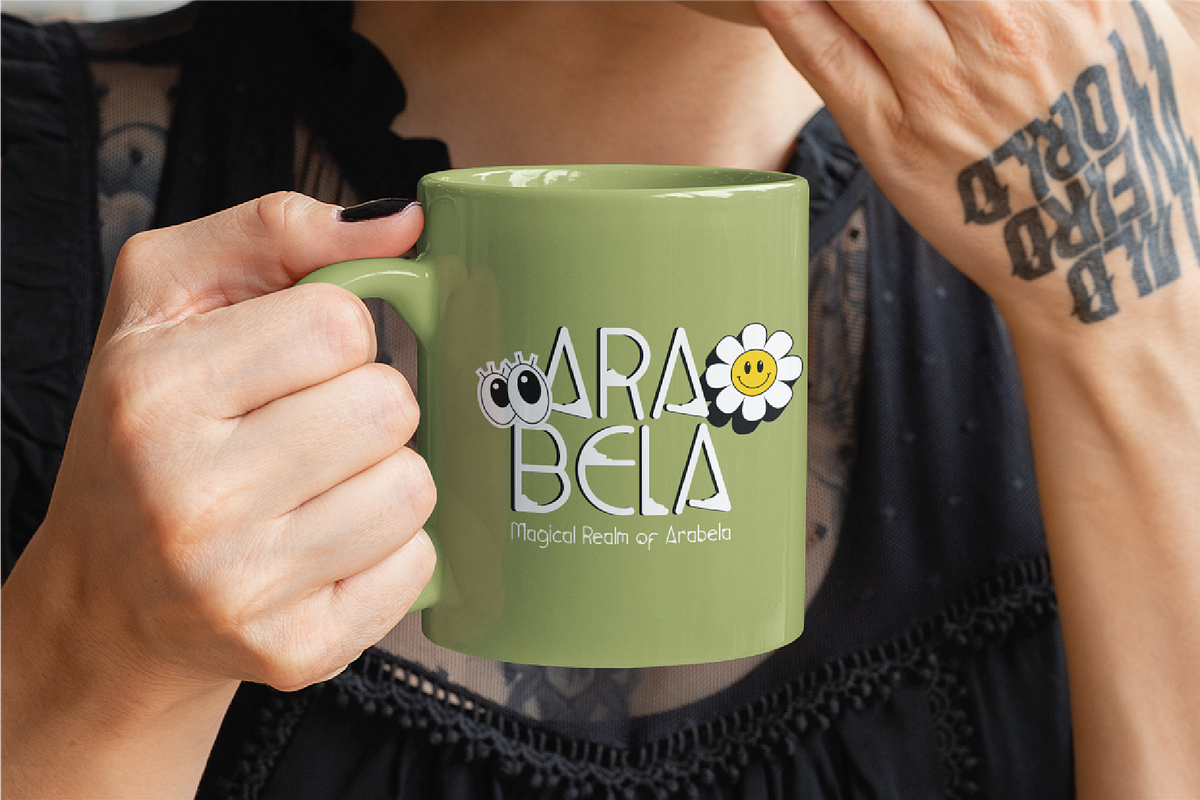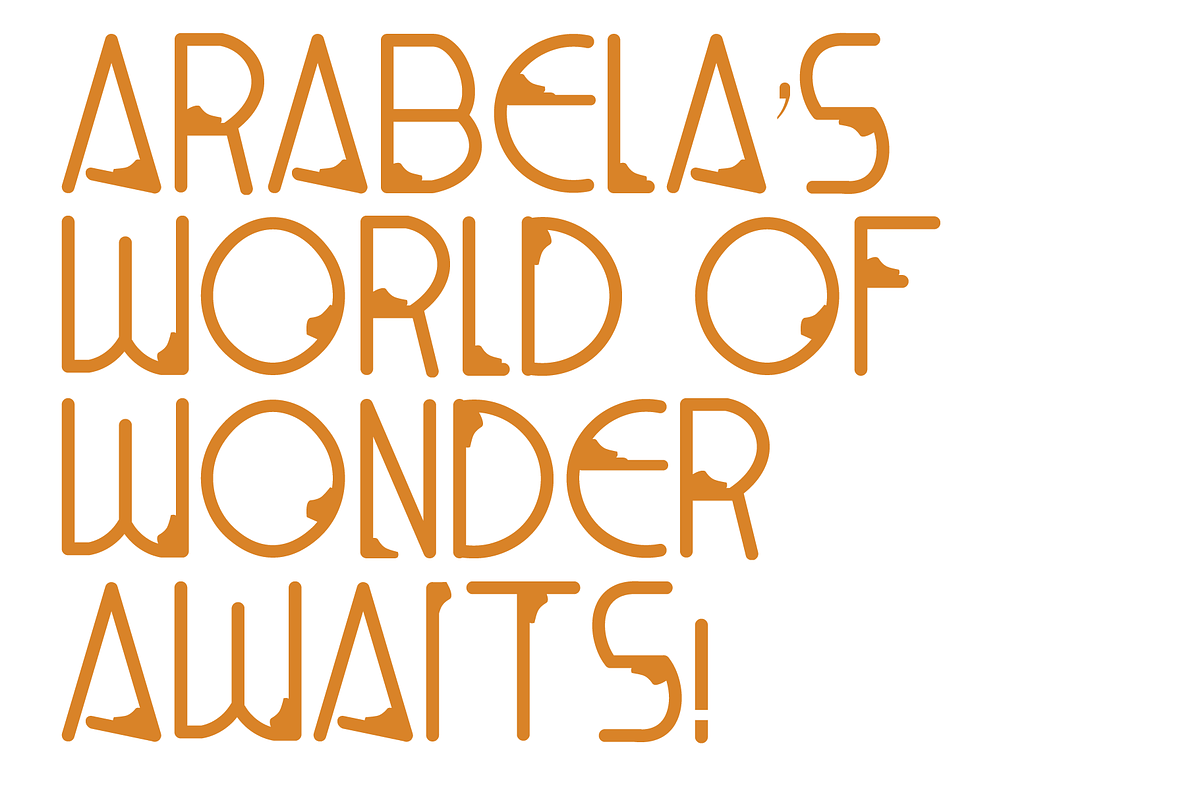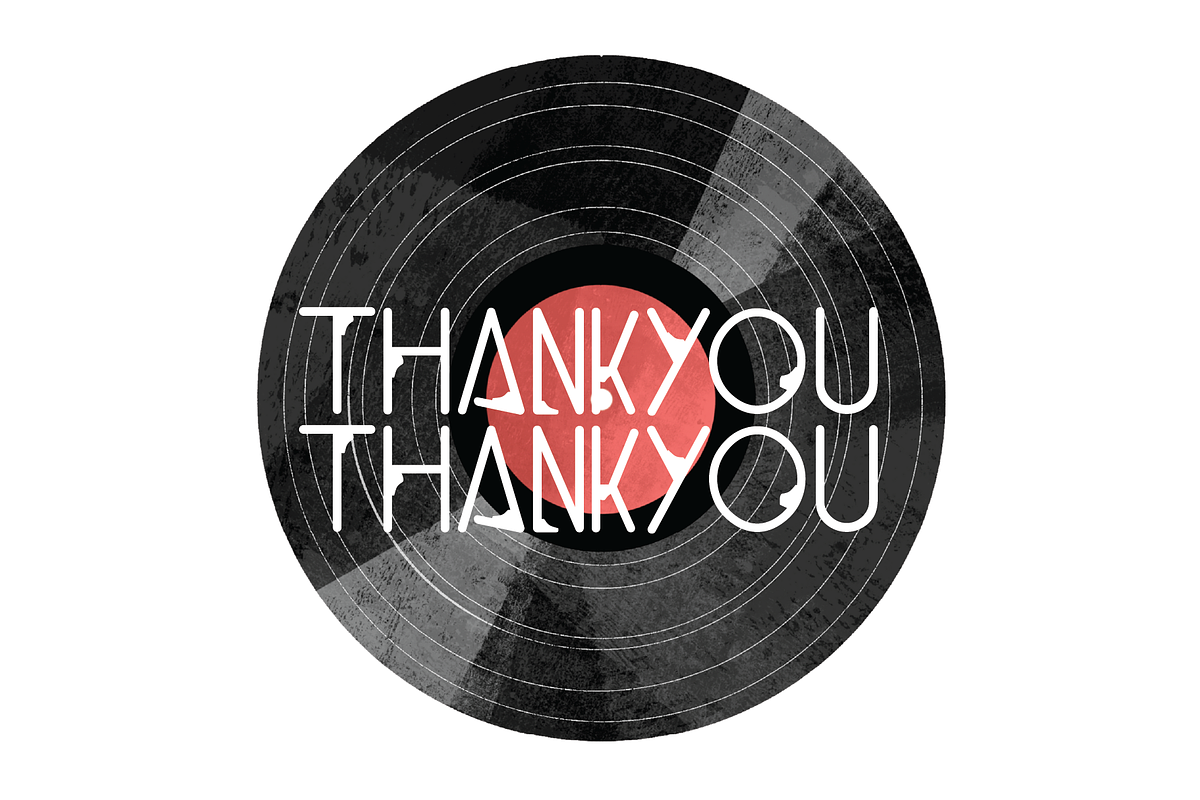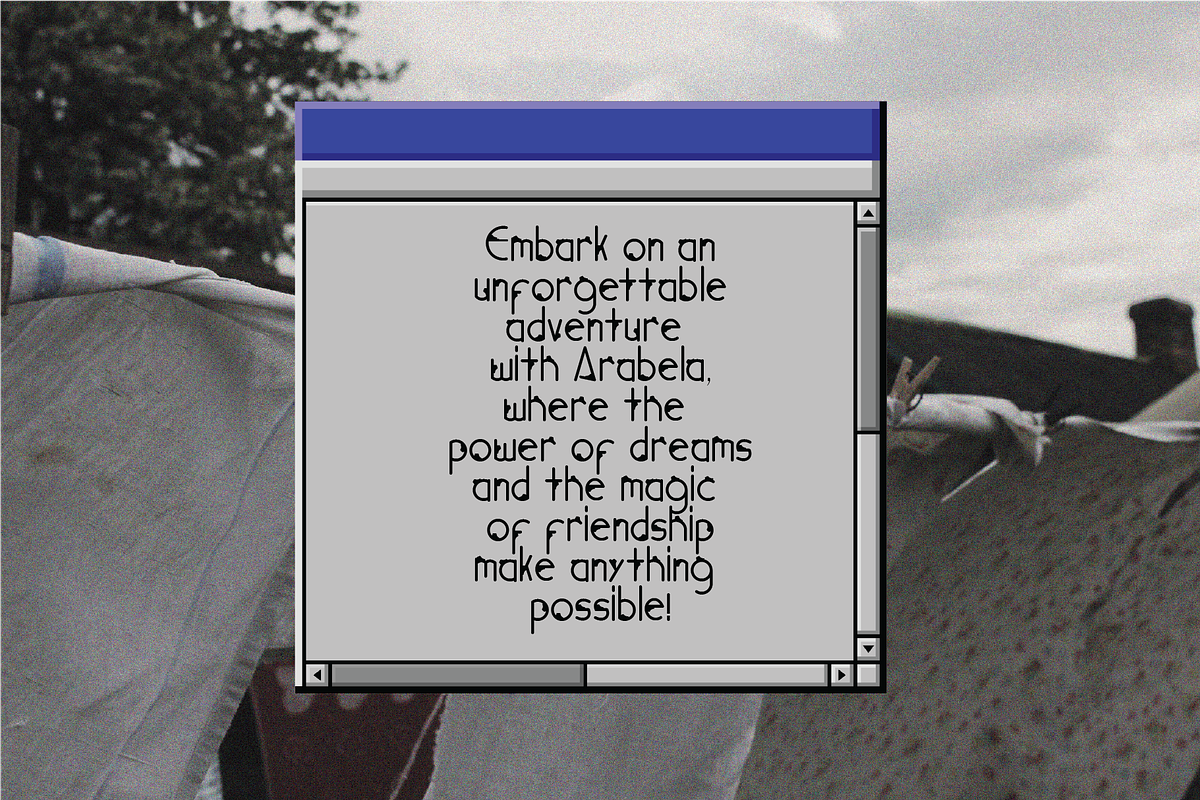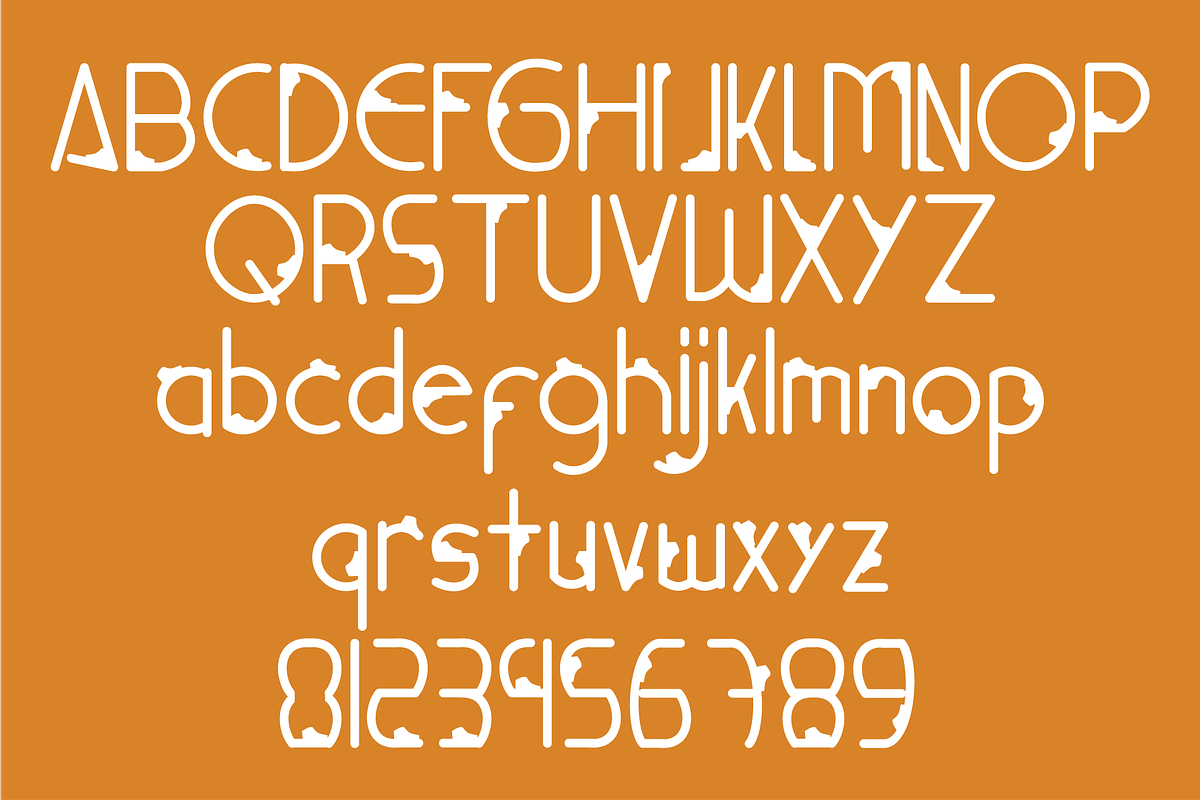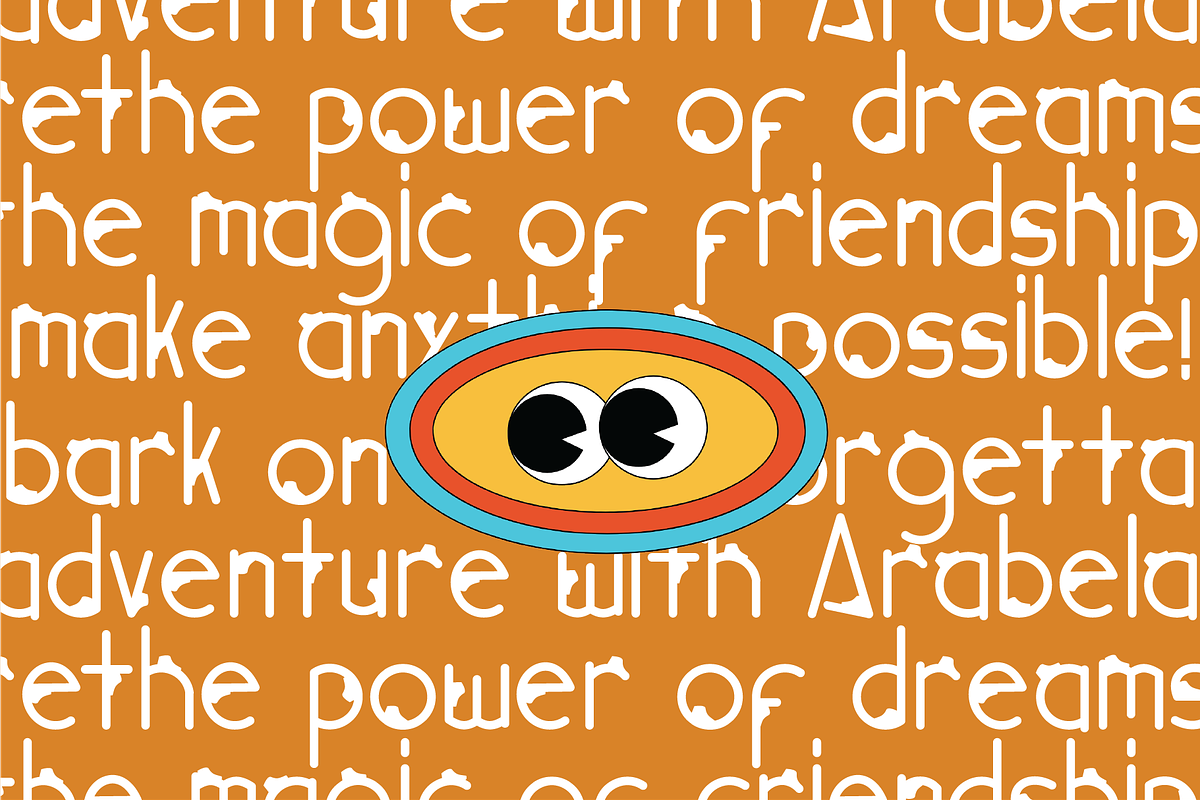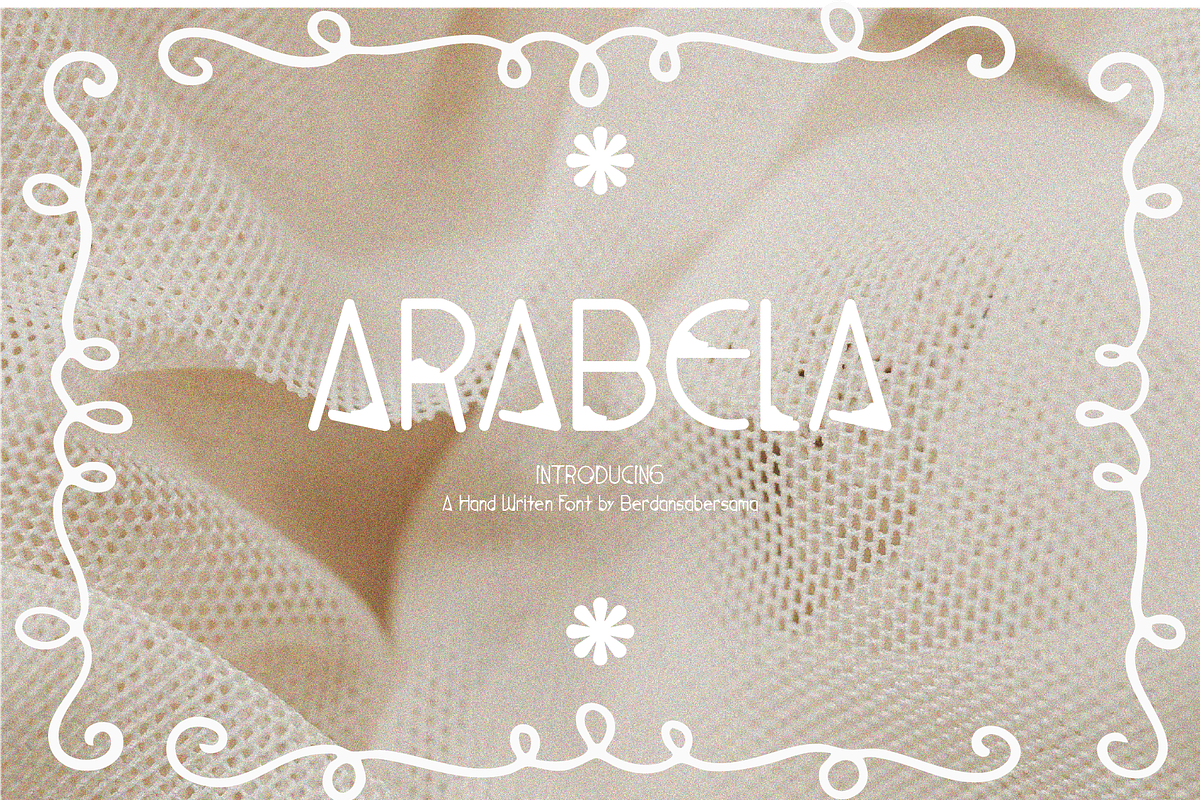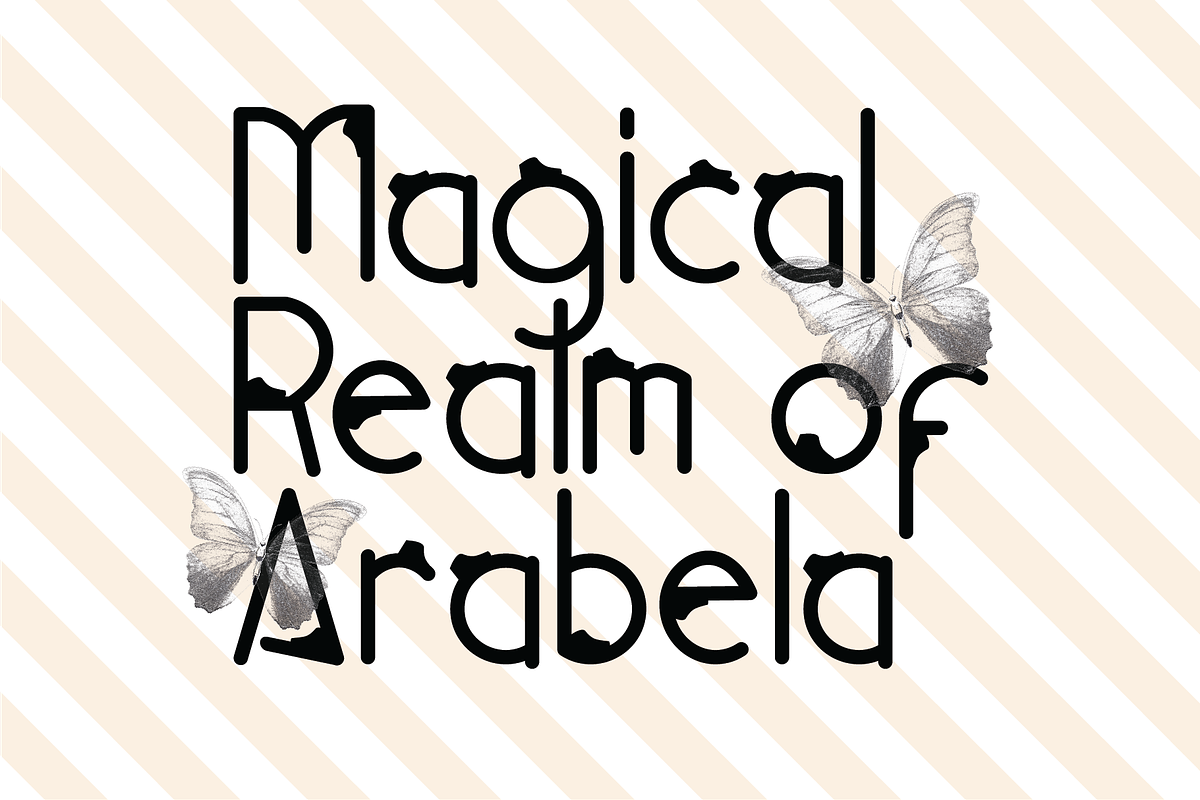
Arabela | Handwritten Font
Arabela is a geometric display type with airy, stencil-like forms and subtle triangular cutouts that suggest a desert/boutique vibe. Its uppercase, monoline strokes and generous spacing feel modern and elegant—ideal for fashion, beauty, lifestyle branding, packaging, and striking poster titles.